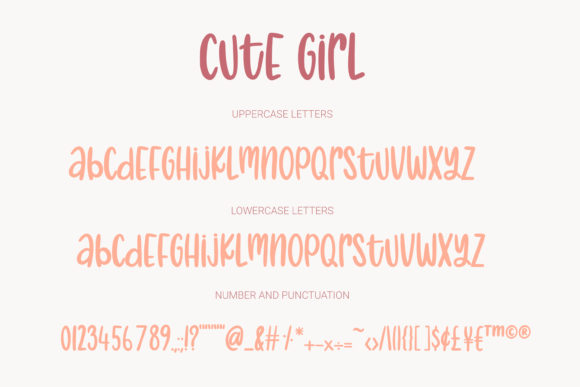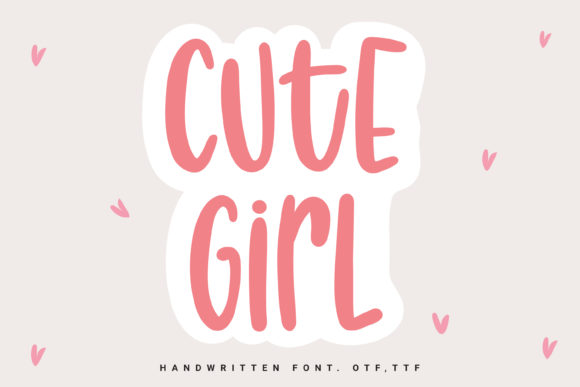
Cute Girl Font: The Perfect Addition to Your Design Projects
Are you a designer or crafter looking for a font that exudes sweetness and friendliness? Look no further than the Cute Girl font! This beautiful handwritten font is perfect for a variety of design projects, from logos and branding to social media graphics and DIY crafts.
What is Cute Girl Font?
Cute Girl is a sweet and friendly handwritten font that is clean and a little bit quirky. Its unique charm makes it stand out from other fonts, and its versatility ensures that it can be used in a wide range of design projects. Whether you’re creating a logo, social media graphic, or crafty DIY project, Cute Girl font is the perfect fit.
Key Features of Cute Girl Font
• Sweet and Friendly: Cute Girl font has a warm and inviting tone that is perfect for designs that require a personal touch.
• Clean and Quirky: The font’s clean lines and quirky charm make it both visually appealing and unique.
• Handwritten: Cute Girl font has a beautiful handwritten feel that adds a touch of personality to any design.
• Versatile: This font can be used in a wide range of design projects, from logos and branding to social media graphics and DIY crafts.
Uses for Cute Girl Font
Cute Girl font is perfect for a variety of design projects, including:
• Logos and Branding: Create a unique and memorable logo for your business or brand with Cute Girl font.
• Social Media Graphics: Use Cute Girl font to create eye-catching social media graphics that will help your brand stand out.
• Crafty DIY Projects: Add a personal touch to your DIY projects, such as handmade cards, gift tags, and scrapbook pages, with Cute Girl font.
• Stationery and Invitations: Create beautiful stationery and invitations with Cute Girl font that will make your correspondence stand out.
Benefits of Using Cute Girl Font
There are many benefits to using Cute Girl font in your design projects, including:
• Unique and Memorable: Cute Girl font is a unique and memorable font that will help your designs stand out.
• Easy to Read: The font is clean and easy to read, making it perfect for designs that require a clear and concise message.
• Versatile: Cute Girl font can be used in a wide range of design projects, making it a great addition to any designer’s toolkit.
• Time-Saving: With Cute Girl font, you can create professional-looking designs in no time, saving you time and effort.
Tips for Using Cute Girl Font
Here are a few tips for using Cute Girl font in your design projects:
• Pair with Other Fonts: Cute Girl font pairs well with other fonts, so don’t be afraid to experiment with different combinations.
• Use in Combination with Images: Cute Girl font looks great in combination with images, so try using it to add text to your photos and illustrations.
• Experiment with Colors: Cute Girl font comes in a range of colors, so try experimenting with different colors to find the one that works best for your design.
Cute Girl font is a beautiful and versatile font that is perfect for designers and crafters looking to add a personal touch to their design projects. With its sweet and friendly tone, clean lines, and quirky charm, Cute Girl font is sure to become a favorite in your design toolkit. So why not give it a try and see the difference it can make in your designs?